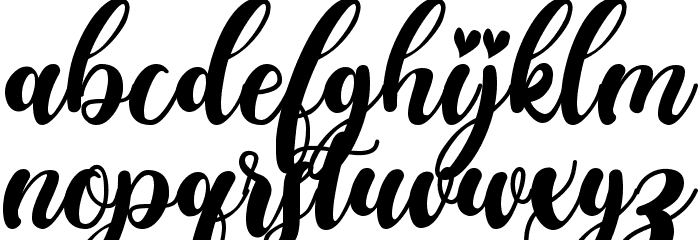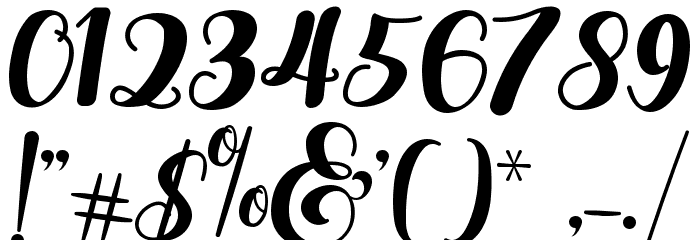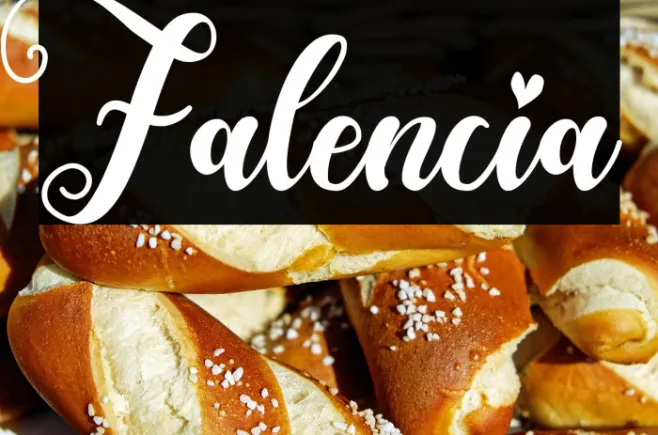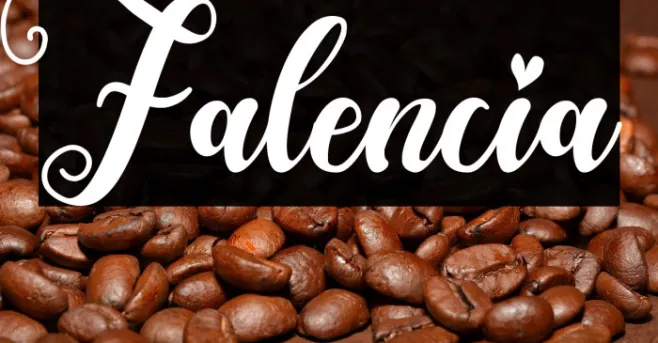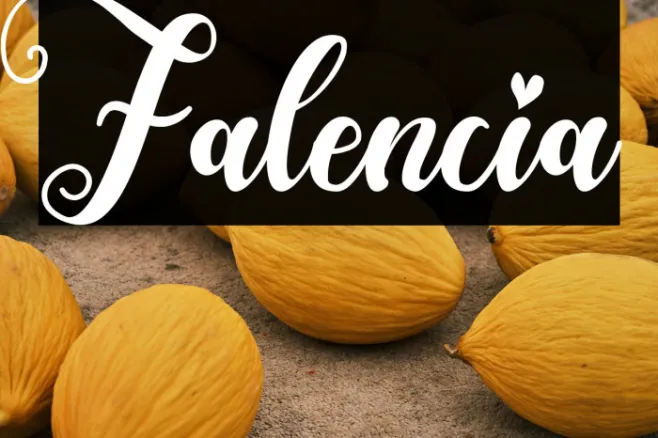
Falencia Font
This font features an elegant and flowing script style with intricate swirls and loops, giving it a sophisticated and decorative appearance. The uppercase letters are particularly ornate, with elaborate flourishes that add a touch of grandeur. The lowercase letters maintain a consistent style, with smooth, connected strokes that enhance readability while retaining a sense of elegance. The numerals and special characters are designed to match the overall aesthetic, featuring similar curves and embellishments. This font is ideal for projects that require a touch of class and sophistication, such as wedding invitations, luxury branding, or high-end product packaging.
An elegant and flowing script font with intricate swirls and loops.
- Proposed Projects: Wedding invitations, luxury branding, high-end product packaging.
- Use Case: Logos, Invitations, Decorative text